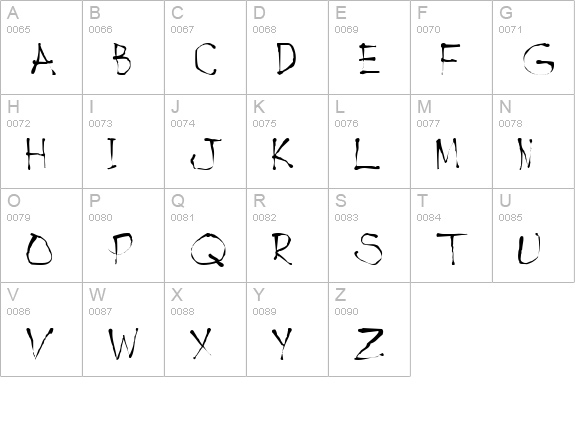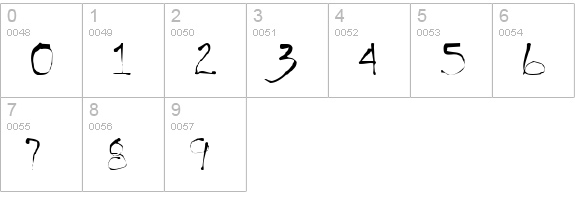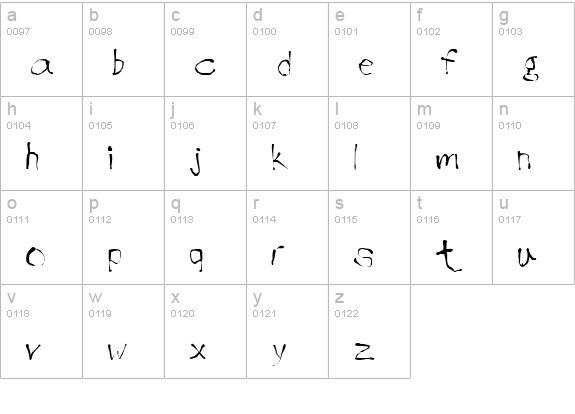
InkBlot Font Details
Introducing InkBlot font, a beautifully crafted typeface that captures the essence of fluidity and artistic expression. This unique font is perfect for adding a touch of creativity to your designs, whether you're working on a logo, branding, or any visual project that requires a dash of personality. With its hand-drawn appearance and organic feel, InkBlot font brings a sense of authenticity and originality to your creations. Its irregular lines and imperfect edges give it a charmingly imperfect character, making it stand out from the crowd. Whether you're aiming for a vintage, grunge, or artistic look, InkBlot font has got you covered. But what makes InkBlot font even more appealing is the fact that it is absolutely free! Yes, you read that right. You can freely download this stunning font at FontsMarket.com and start using it in your designs right away. No need to worry about any licensing fees or restrictions. InkBlot font is yours to enjoy and utilize in any personal or commercial project. Don't miss out on the opportunity to enhance your design toolkit with this versatile and eye-catching font. Download InkBlot font today and let your creativity flow freely.